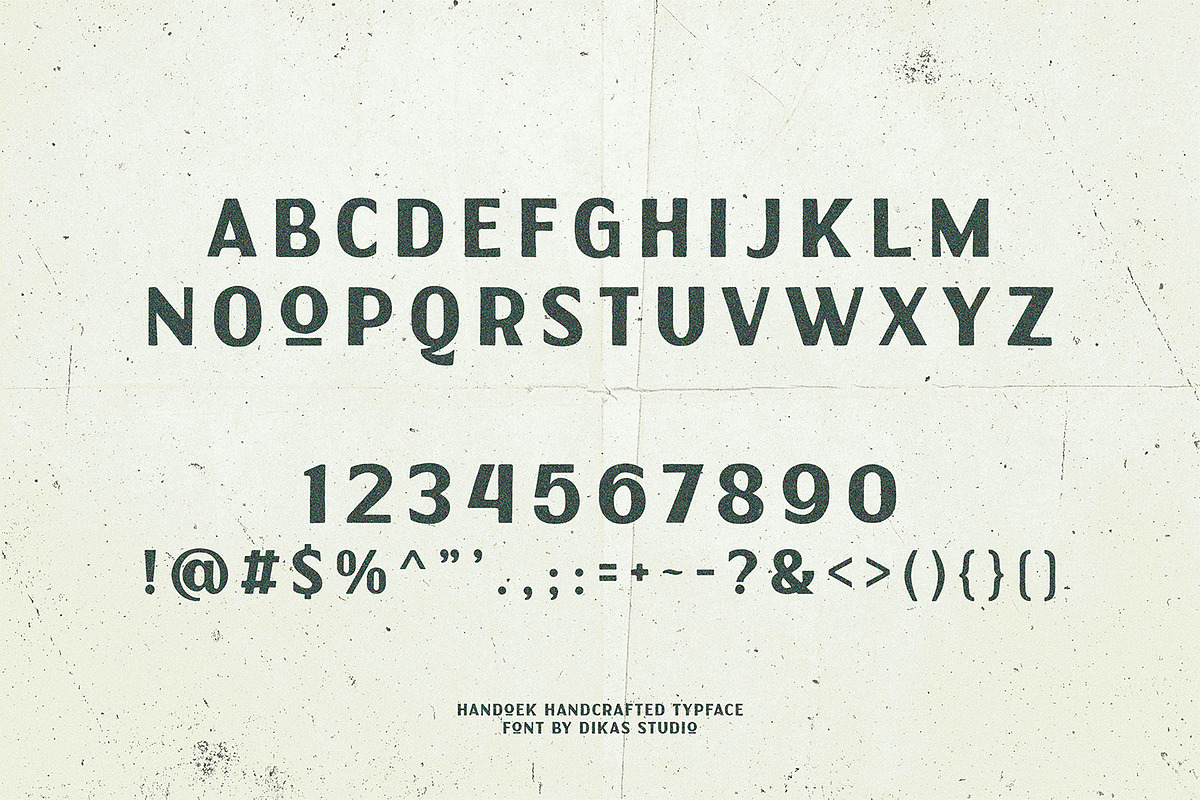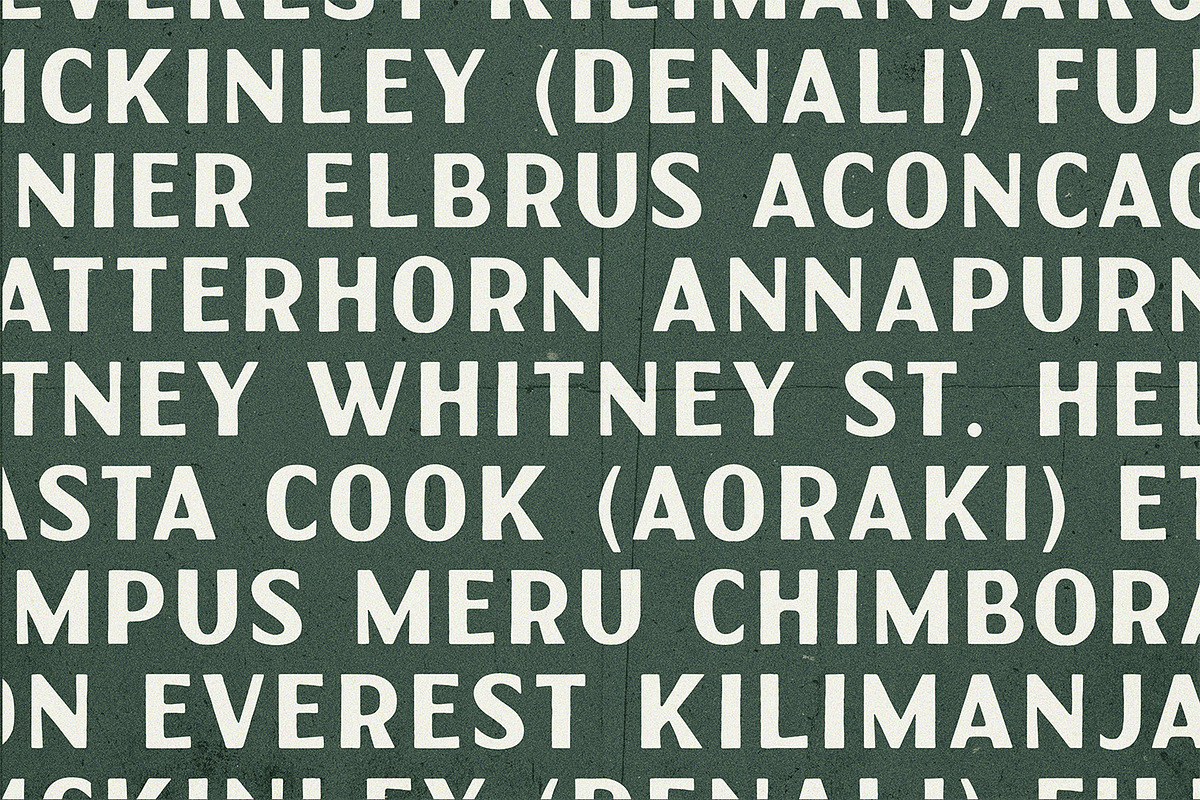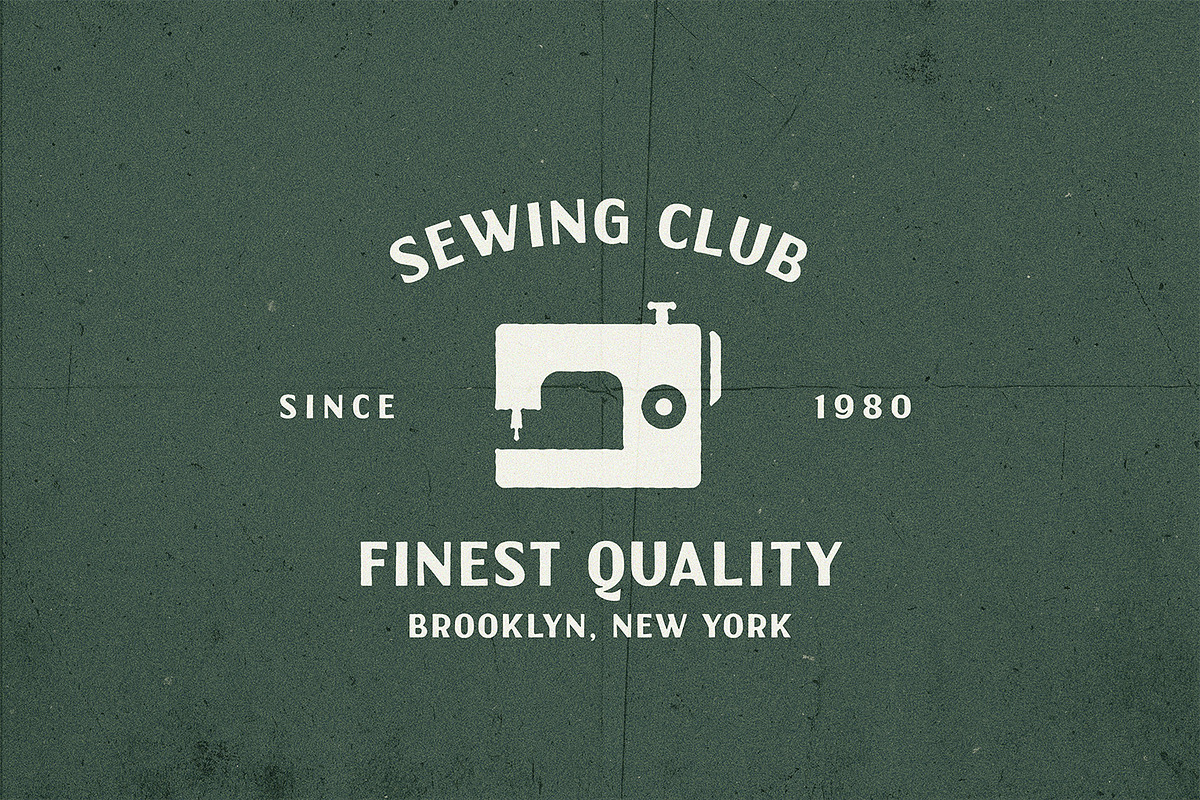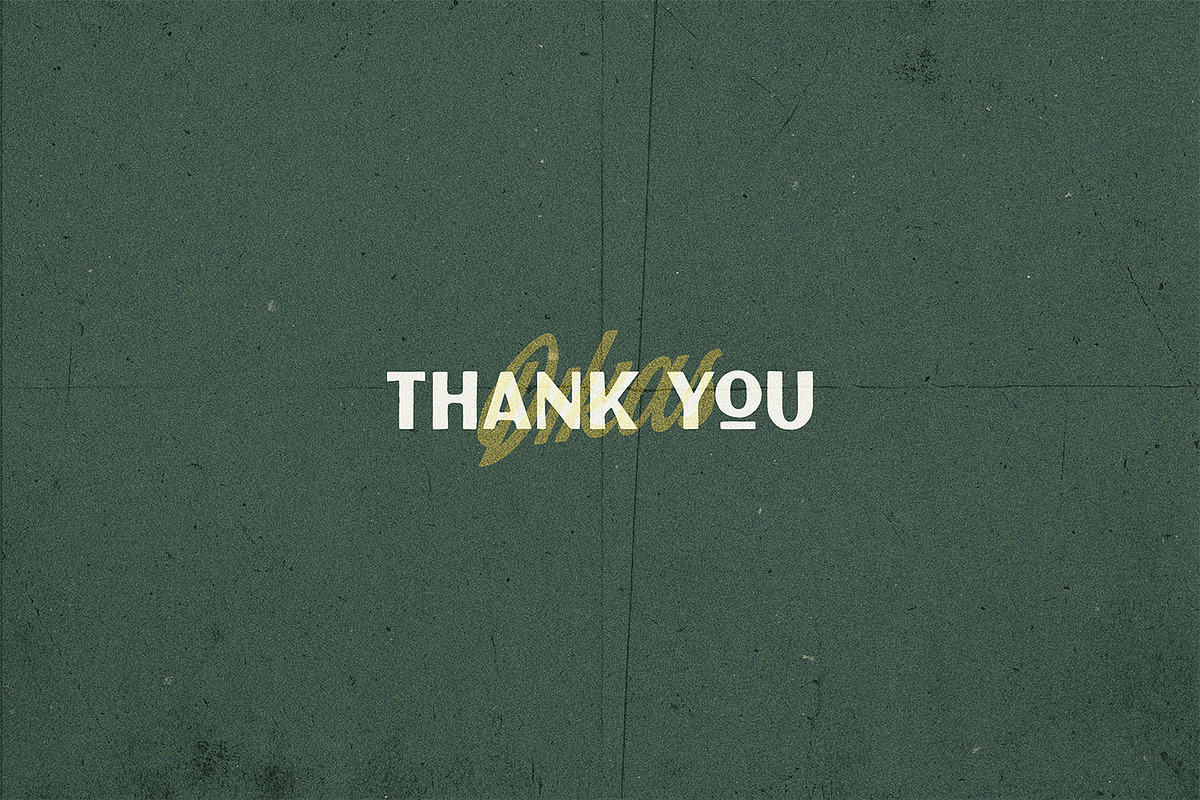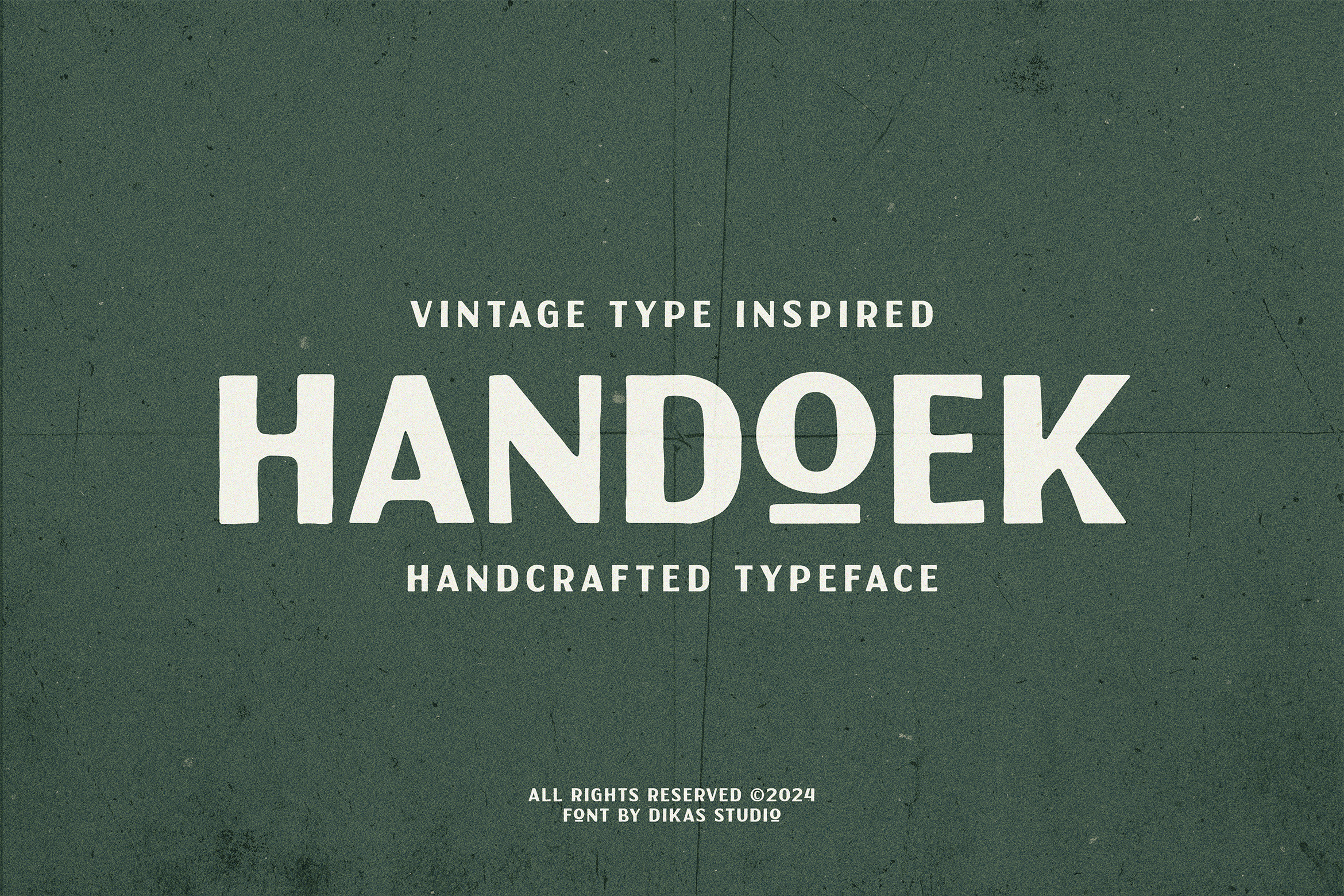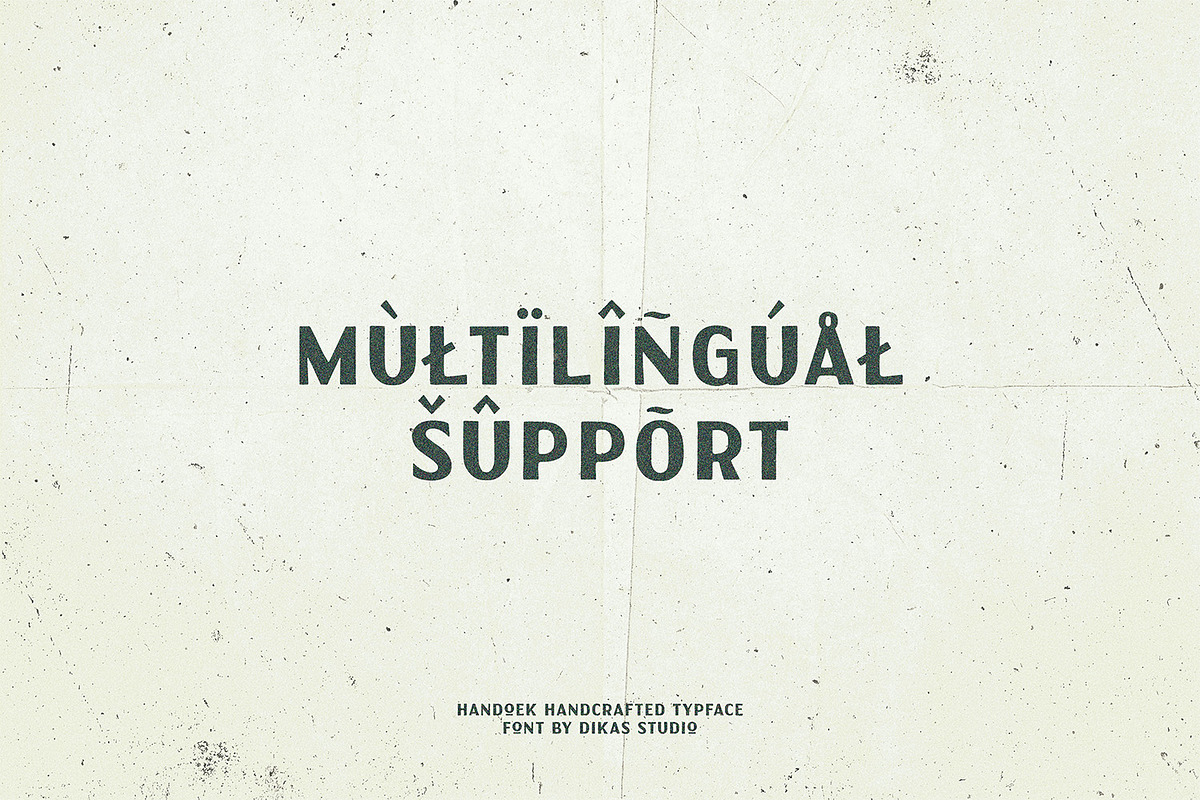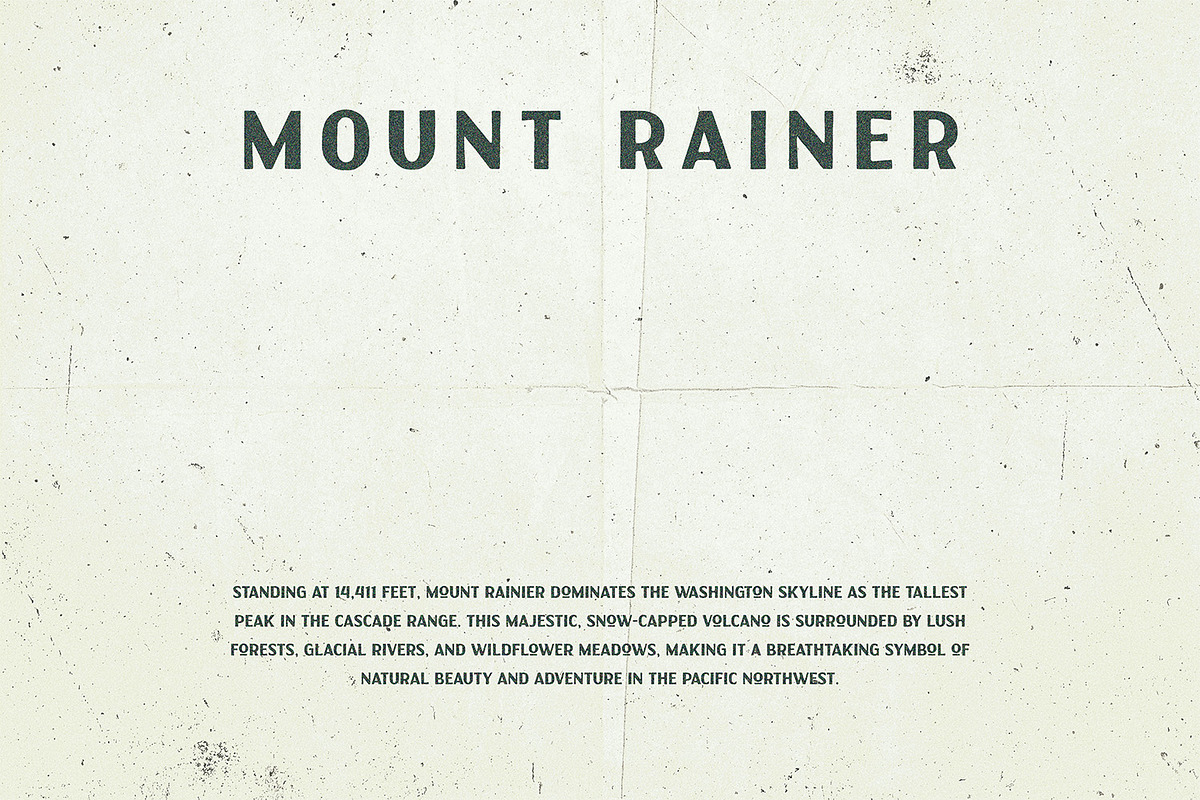
Handoek - Handcrafted Typeface
Handoek is a sans-serif font with a vintage soul, crafted with a hand-drawn, rough texture that exudes authenticity. Perfect for capturing the nostalgic essence of 70s posters, badge, label or logos, this font adds character and warmth to your retro-inspired designs.
– All Caps Character – Punctuation & Number – Multilingual Language